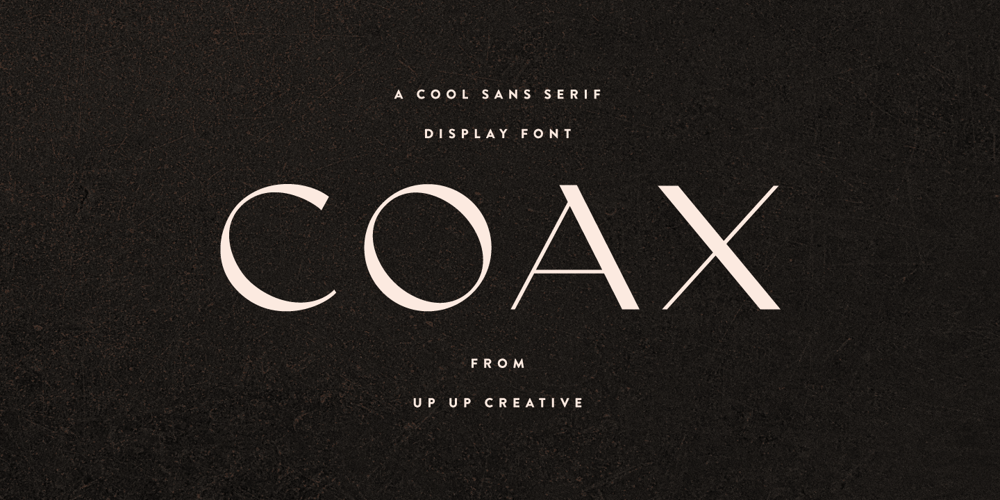
Coax Font Family was designed by Julie Green and published by Up Up Creative. Coax contains 1 styles and family package options. Coax is a cool sans serif display font with high-end details like oblique stressed round letters and a sprinkling of asymmetrical geometric serifs. Coax is destined for your next branding, advertising, or editorial design project. Also Great for headlines, monograms, logos, wedding invitations, and more.Coax includes approximately 530 glyphs, including 42 standard and discretionary ligatures. OpenType features include a smattering of character variants and multilingual support (including multiple currency symbols).The OpenType features can be very easily accessed by using OpenType-savvy programs such as Adobe Illustrator and Adobe InDesign. (To access these awesome features in Microsoft Word, you’ll need to get comfortable with the advanced tab of Word’s font menu.)